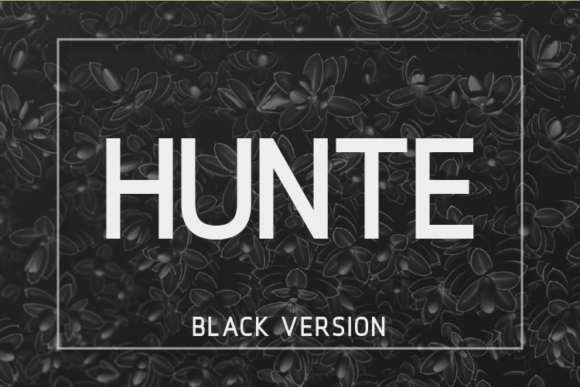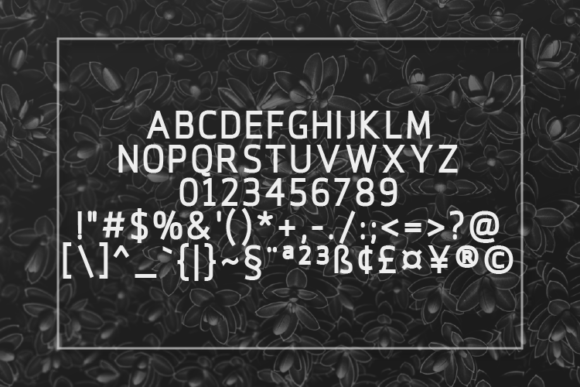
Hunte Black Font
About Hunte Black Font
The absence of terminals gives Hunte a clean and geometric look, while keeping its essence and structure! It’s an ideal font for publishing, titles, books, magazines and corporate design.